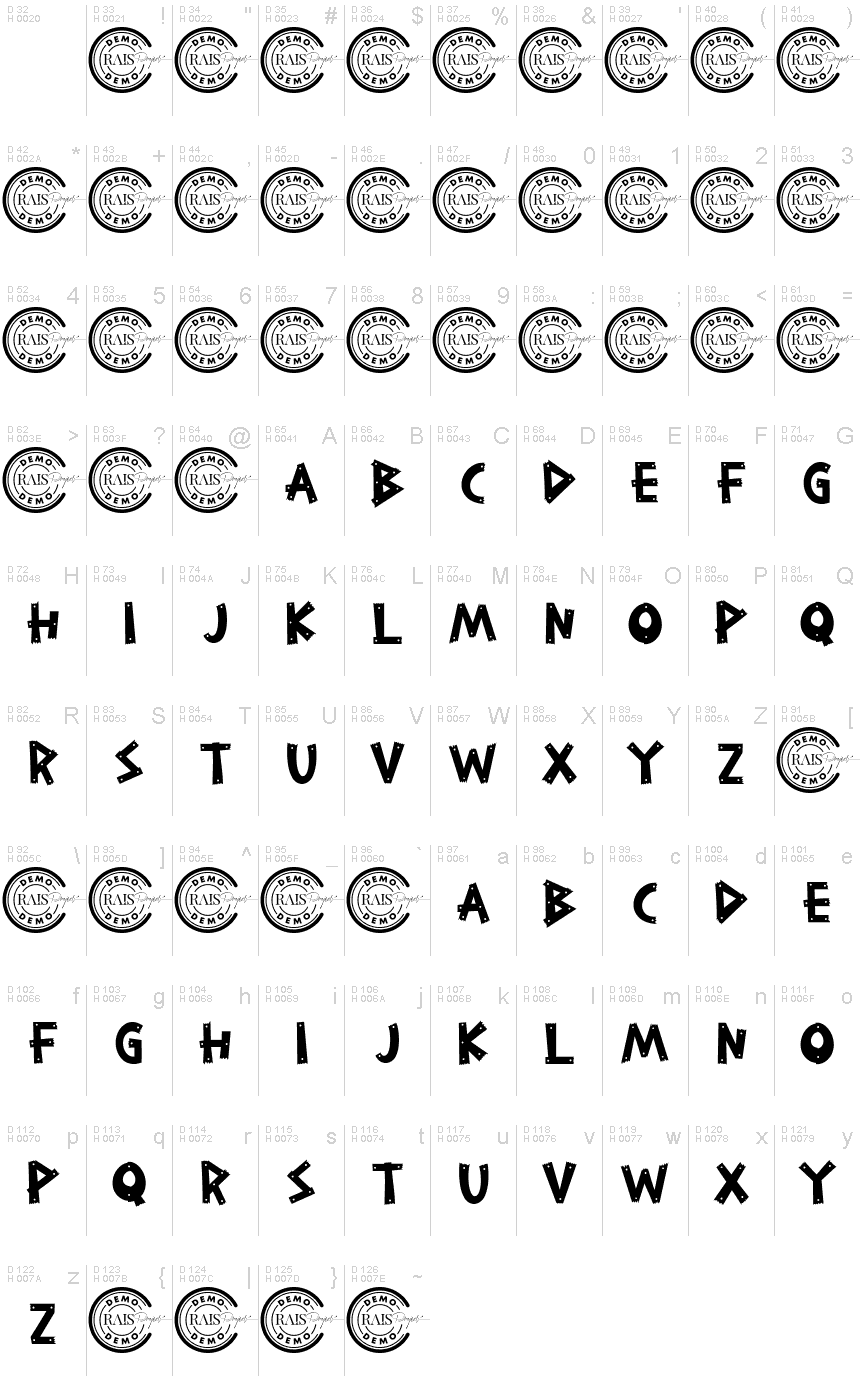
Wood Beads, a bold and decorative display font by RaisProject, adds an artisanal touch to any design project. Perfect for rustic and vintage themes, this font captures the essence of wooden planks with its textured appearance.
Use Wood Beads to create eye-catching headlines, logos, packaging designs, and more. Its bold weight ensures that your message will be noticed while its decorative style adds a unique flair to your creations. Whether you're designing for a craft brewery or a cozy café, Wood Beads is the ideal choice for adding warmth and character to your typography.